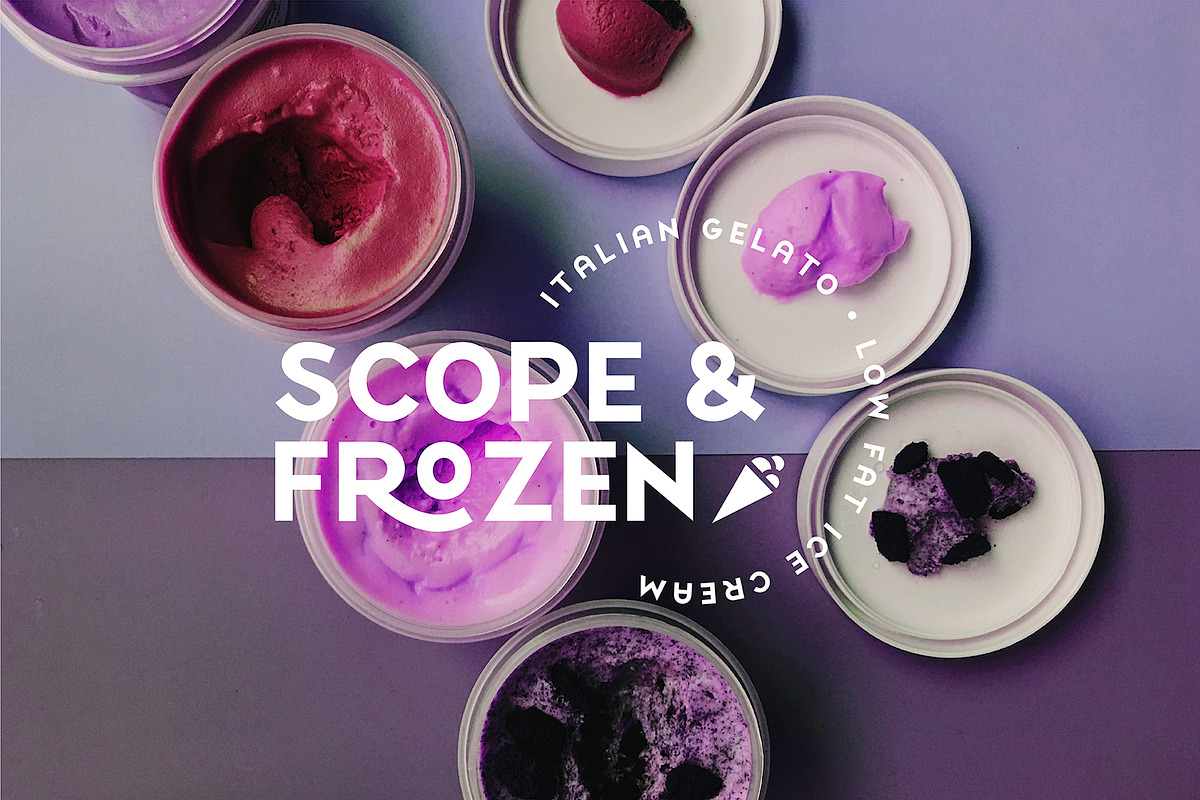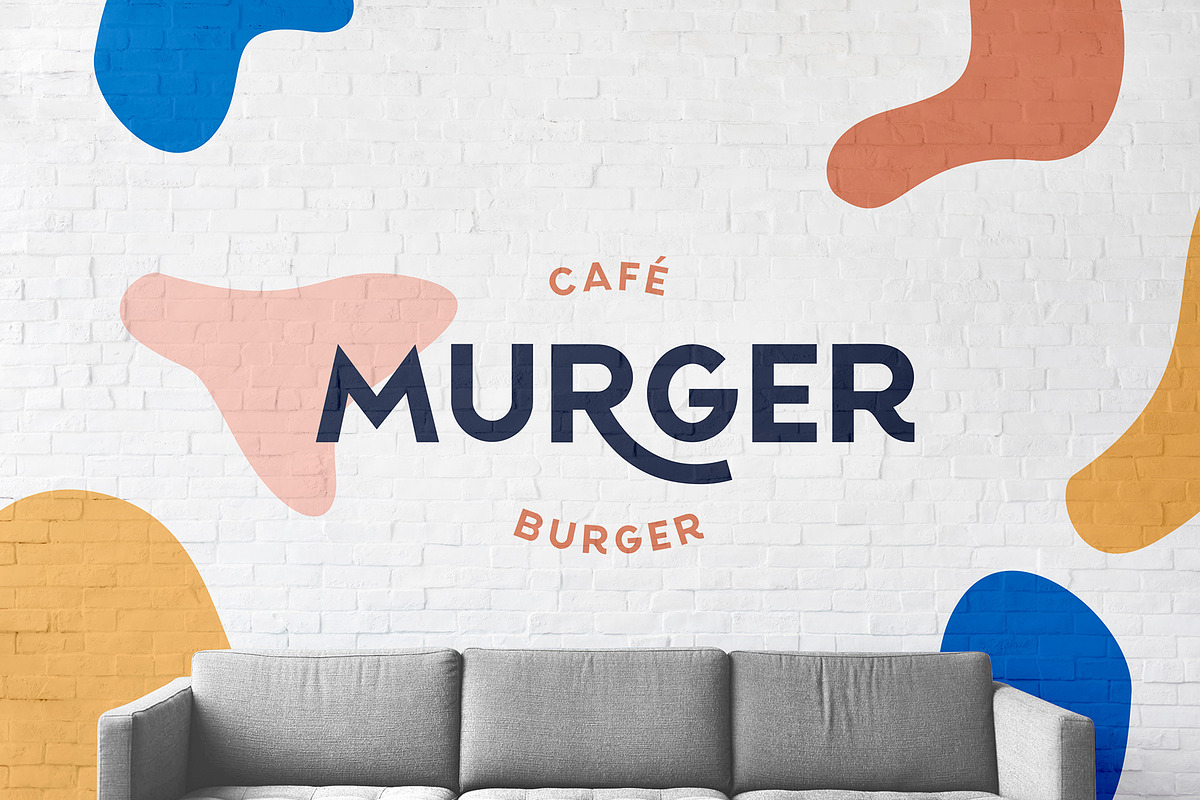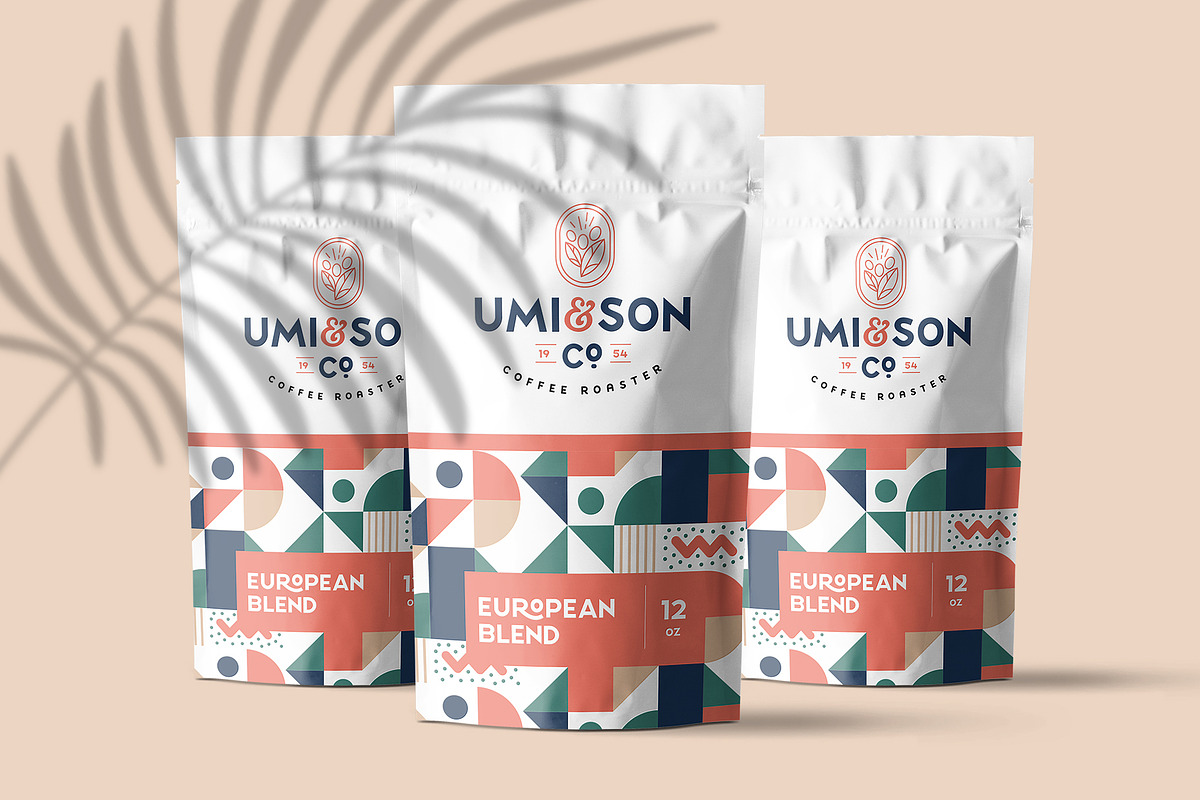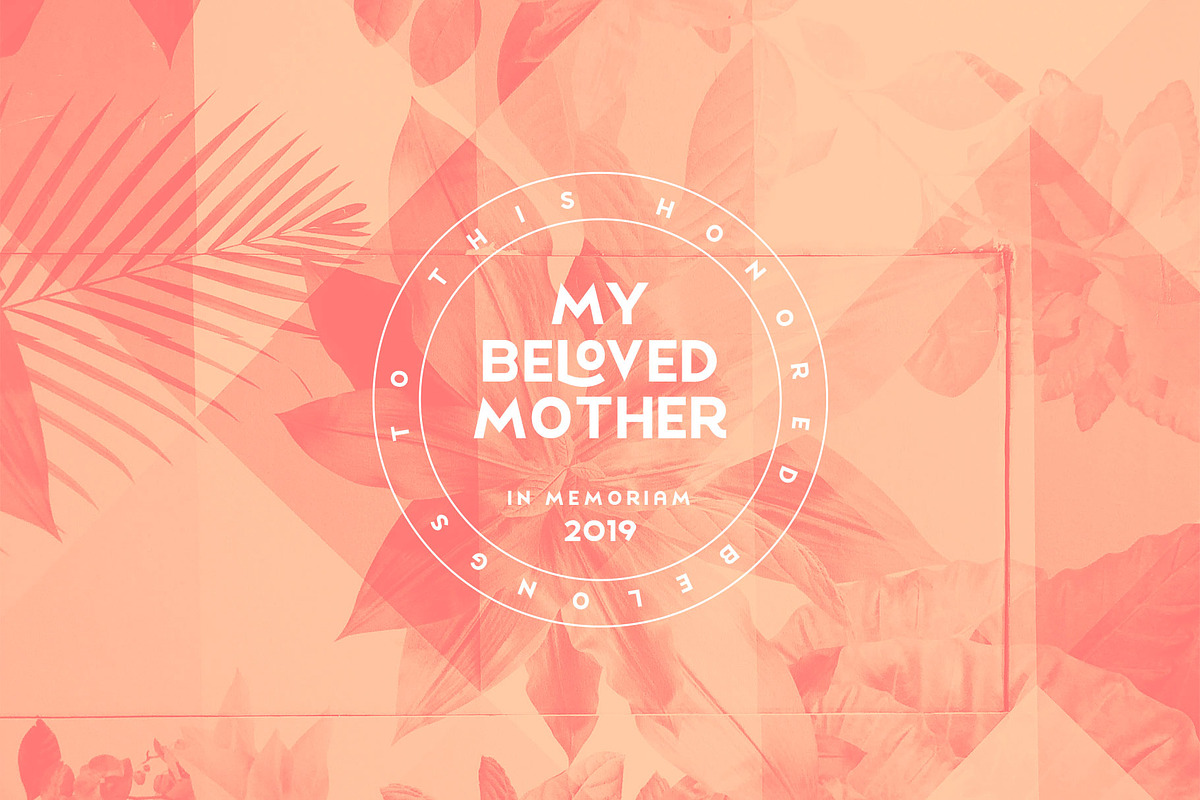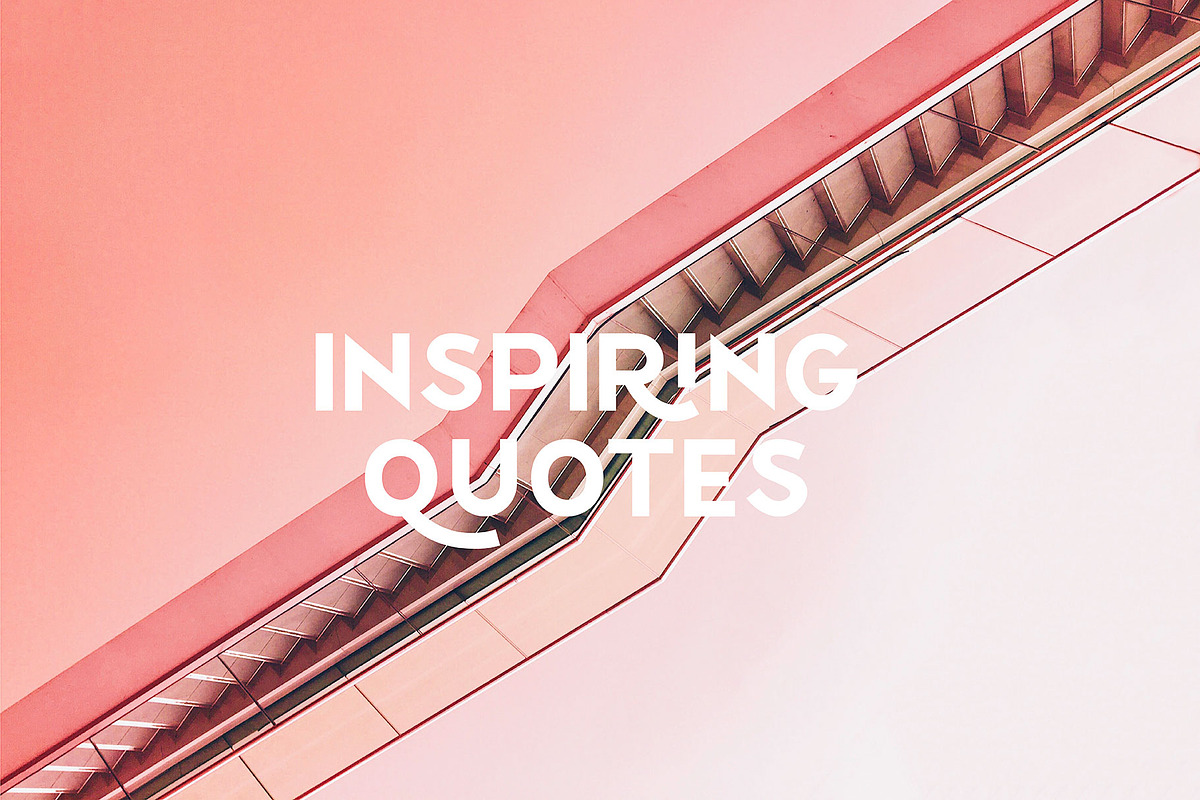
Myona Sans Display
You will get Myona Sans Display with multilingual supports and logo template + pattern as extra!
Myona Sans is a modern, bold, elegant, and all-caps display font. Equipped with ligatures and alternative letters. It's perfect for branding projects, packaging designs, posters, invitations, web or app development, or other of your creative ideas!
Key Feature
- All-caps display
- Available ligatures on Uppercase and Lowercase
Trivia Myona Sans
I dedicate this font to my mother, who supported me from zero, she always waited and encouraged me in this work, until finally 2 weeks ago my mother died of illness. And now I hoped to make her happy in there...